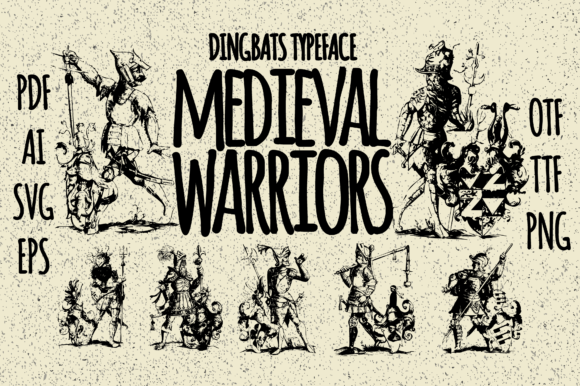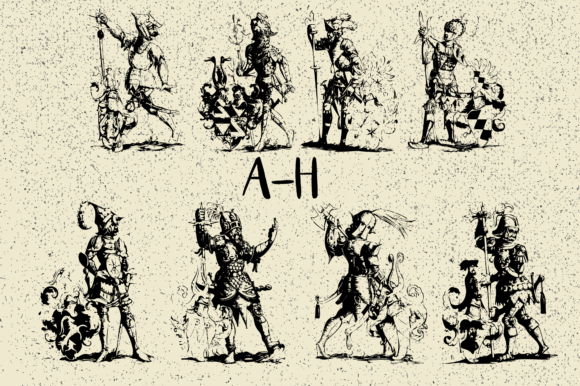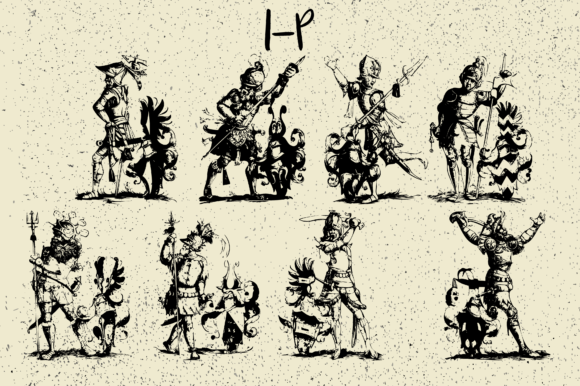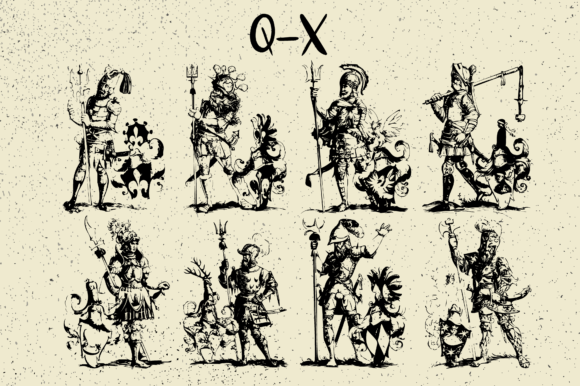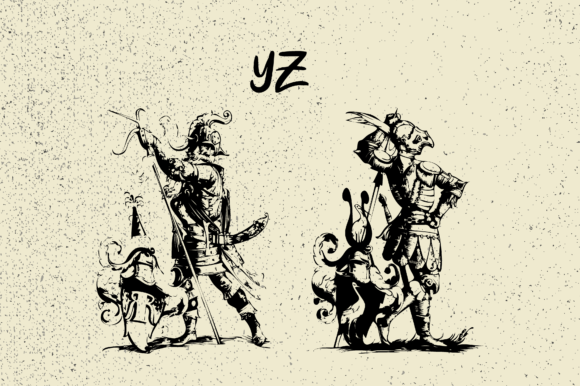
Medieval Warriors Font
About Medieval Warriors Font
Medieval Warriors is an innovative and eye-catching dingbats font that brings 68 elements to the table. Whether you’re looking to create medieval-inspired logos, cards, or other visual elements, this font is the perfect choice.
The medieval-inspired design of these elements is sure to create a stunning and unique aesthetic to any project. Each of these elements, such as swords, shields, helmets, and other weapons, is perfect for adding a touch of medieval energy to a design.
Medieval Warriors is a great choice for anyone looking to create a daring and exciting design with a medieval touch. Whether you’re a history buff, a fantasy enthusiast, or simply love the medieval aesthetic, this font is the perfect way to elevate any project.
One of the best things about Medieval Warriors is how easy it is to use. The font is designed to be user-friendly and easy to customize, making it a versatile tool to convey any kind of message you want. Whether you’re looking to create a logo, a card, or any other visual element, this font is sure to create a stunning and original design to your project.
If you’re looking for a font that will take your medieval-inspired design to the next level, Medieval Warriors is a perfect choice. With its unique and captivating design, it’s sure to create a daring and exciting design to any project. Whether you’re looking to convey a message of bravery, strength, or determination, Medieval Warriors is an incredible asset to your fonts’ library and has the potential to elevate any medieval-inspired project.